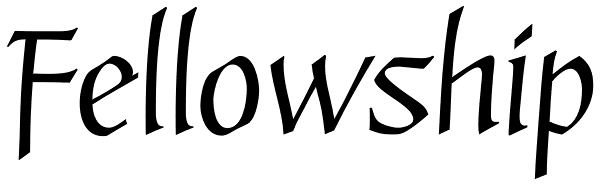
Fellowship
Named in tribute to the members of the American Typecasting Fellowship, this font is an original expression of Jim Rimmer's left-handed calligraphy. It was designed and cut in 24 p in the early 1980s, then cast as foundry type on Jim's own Thompson...